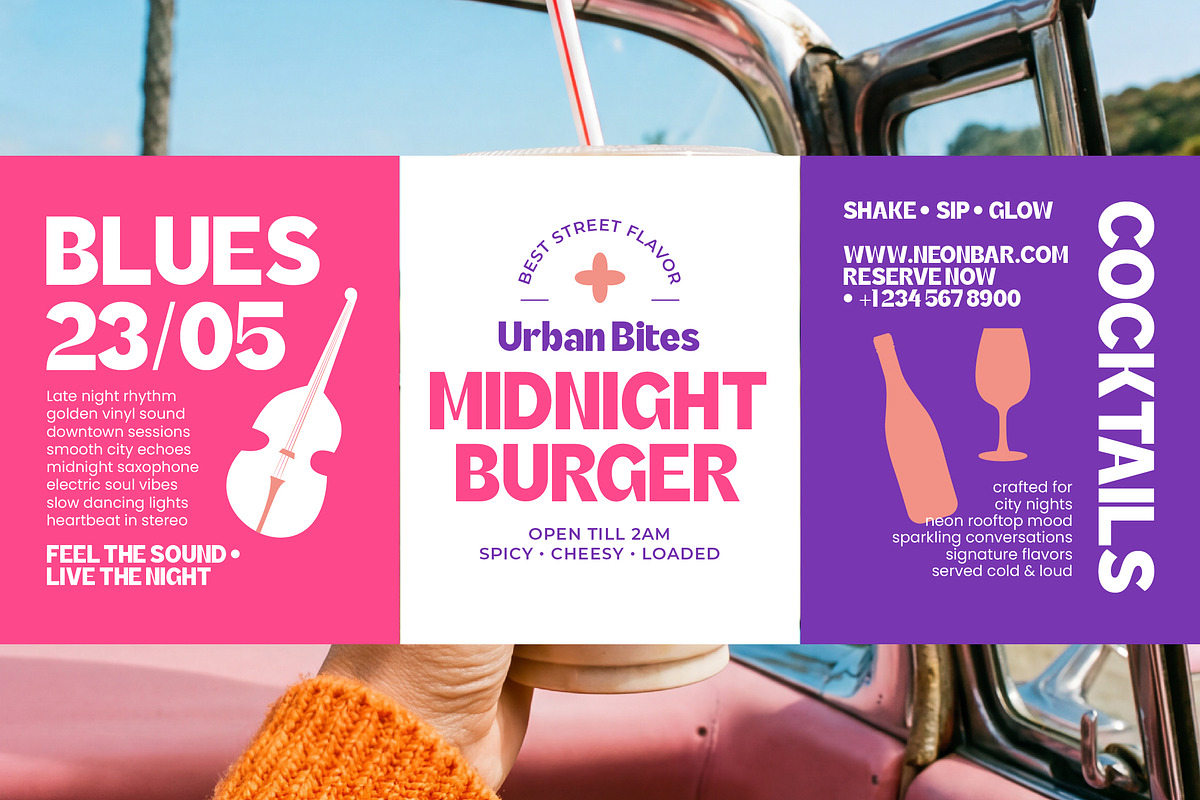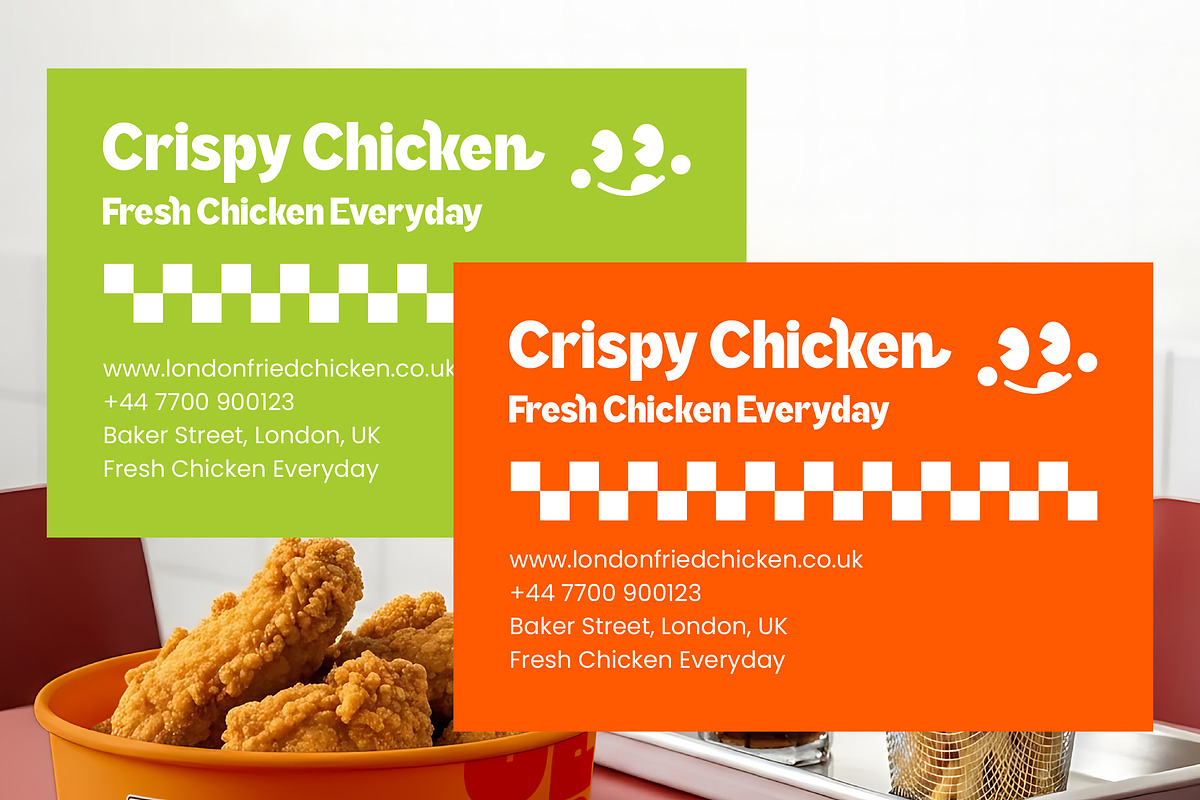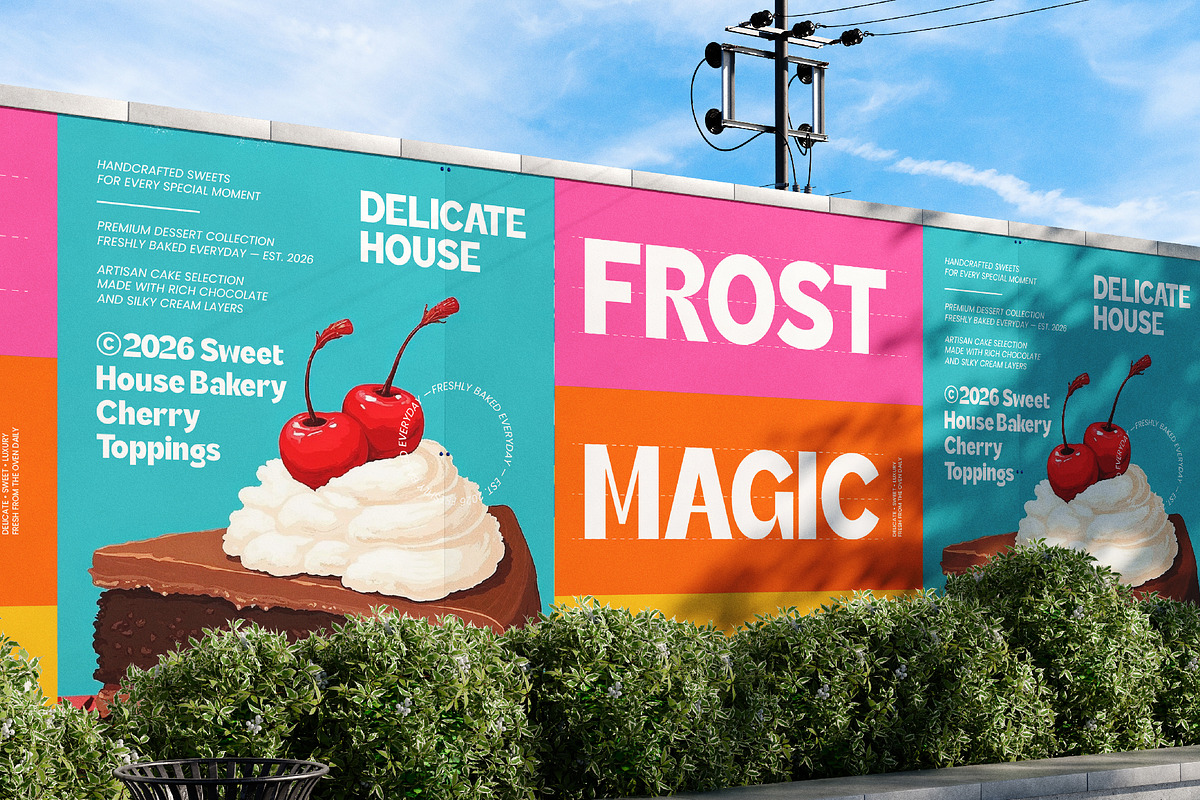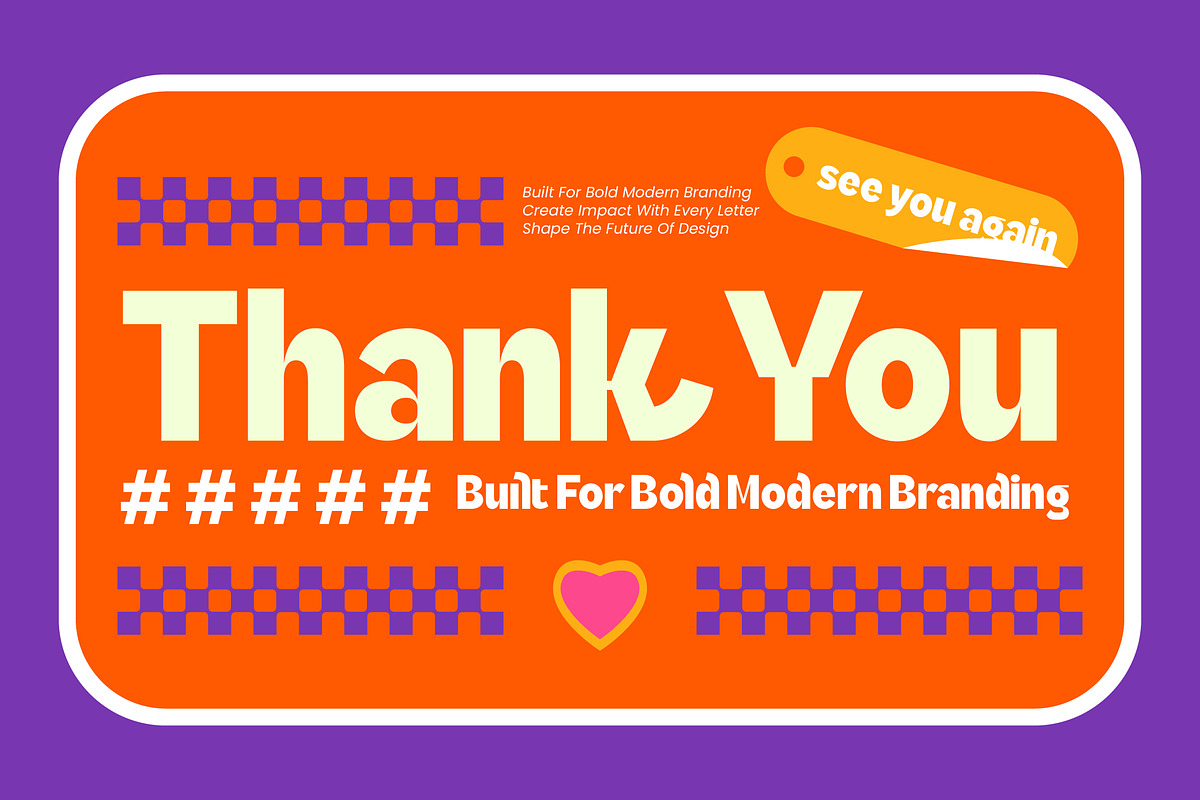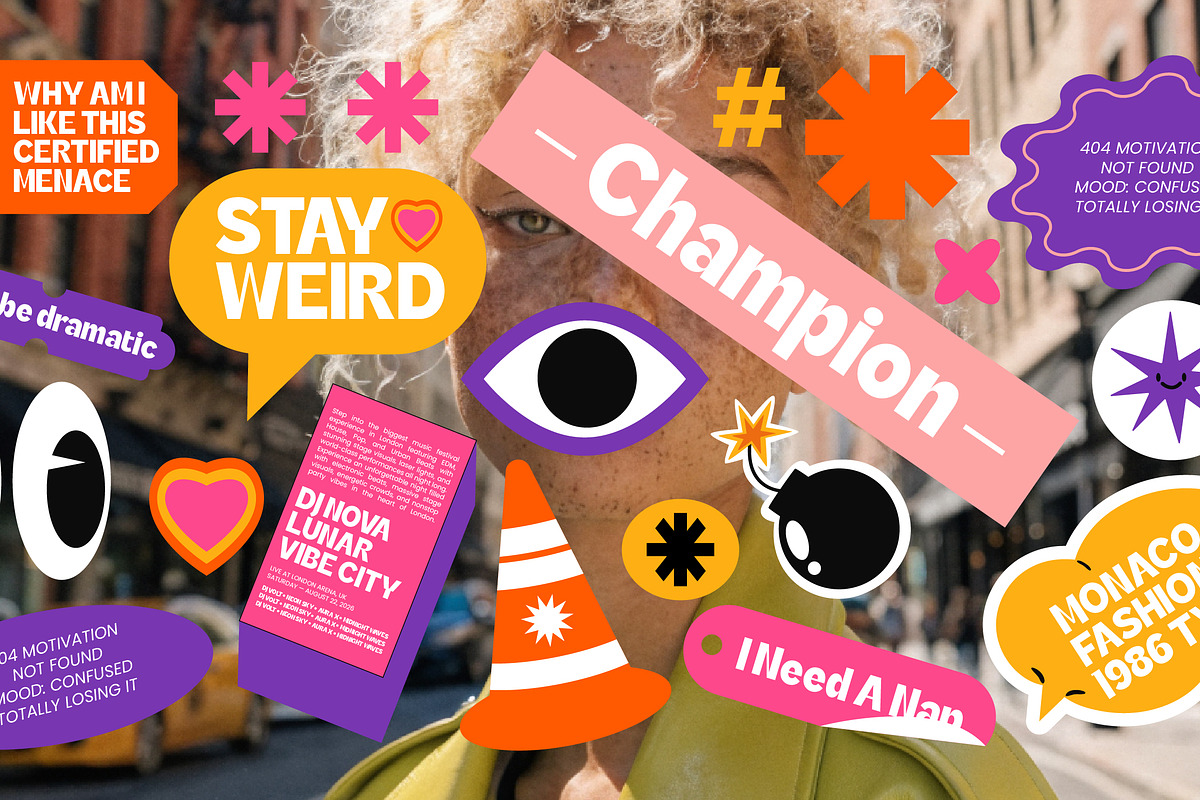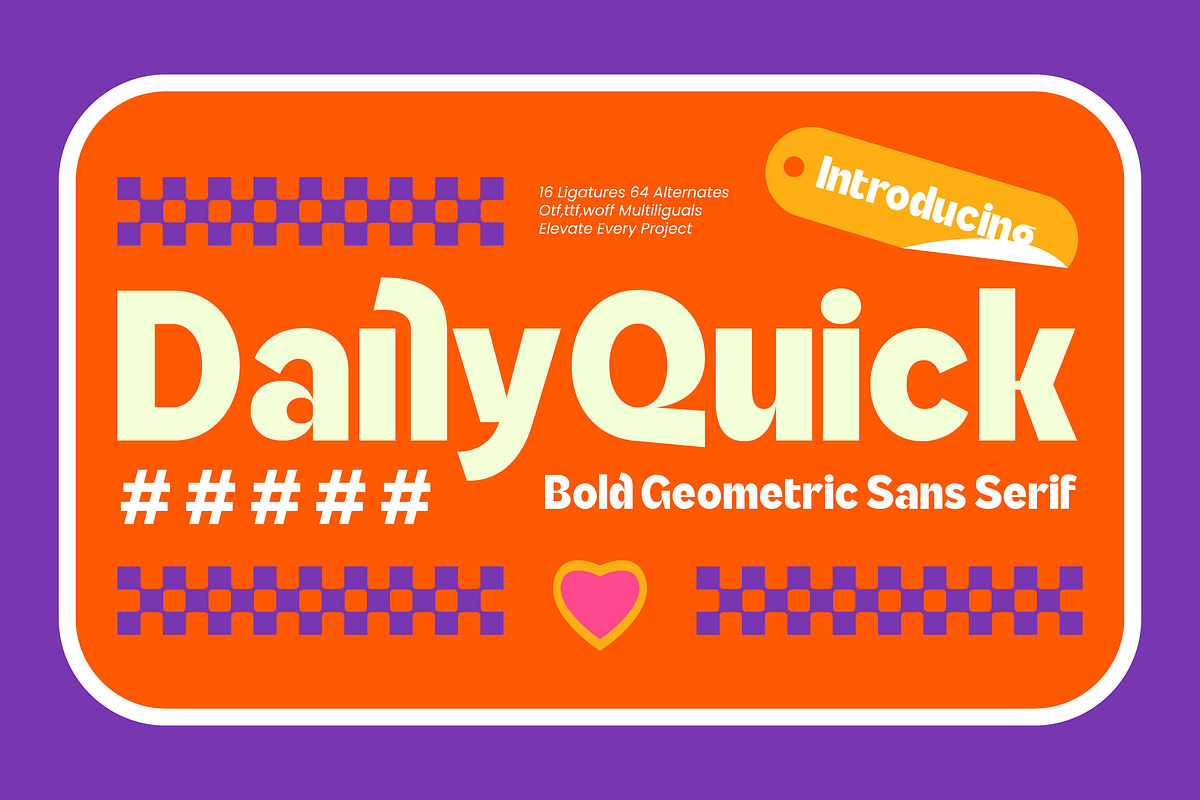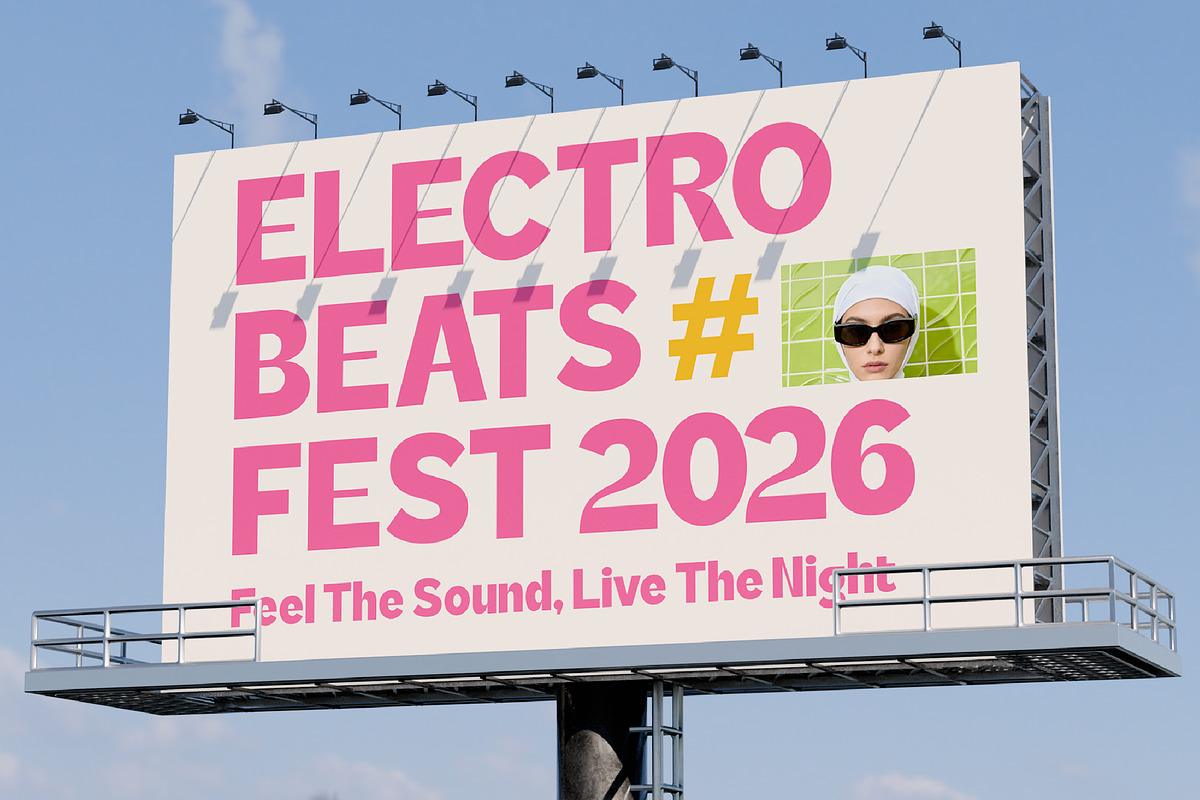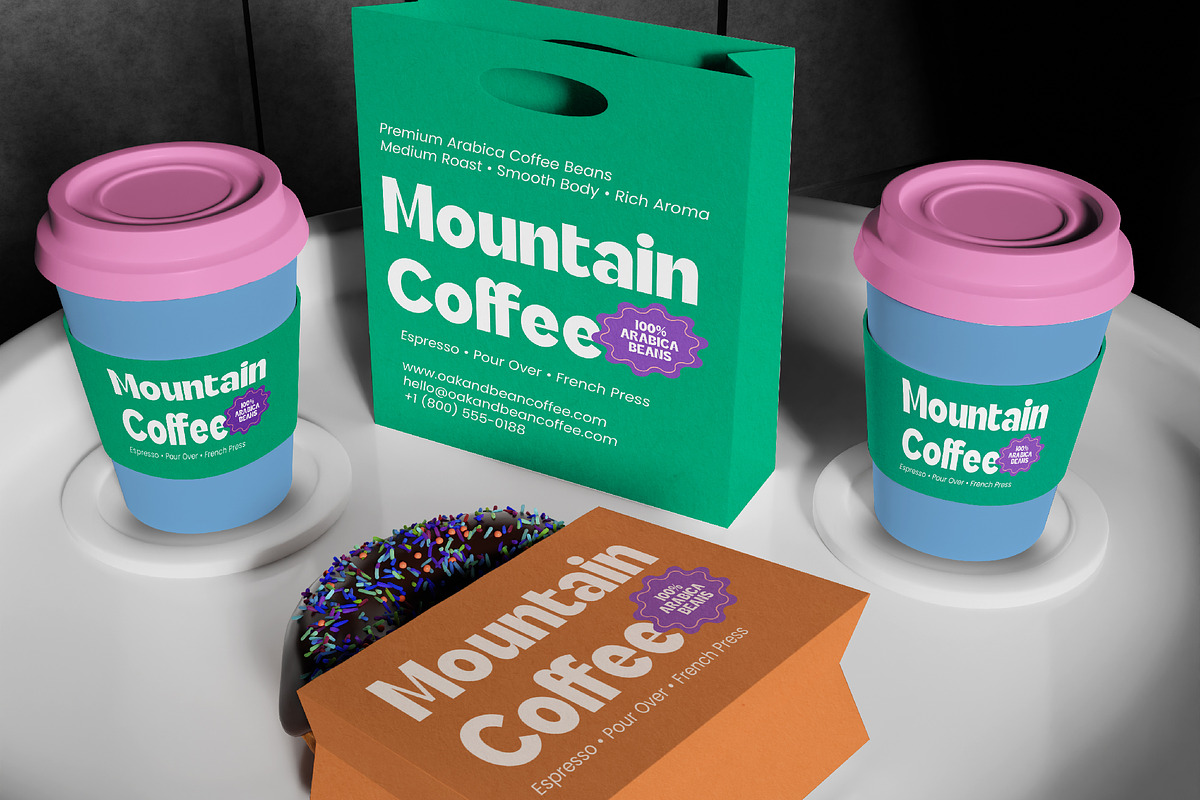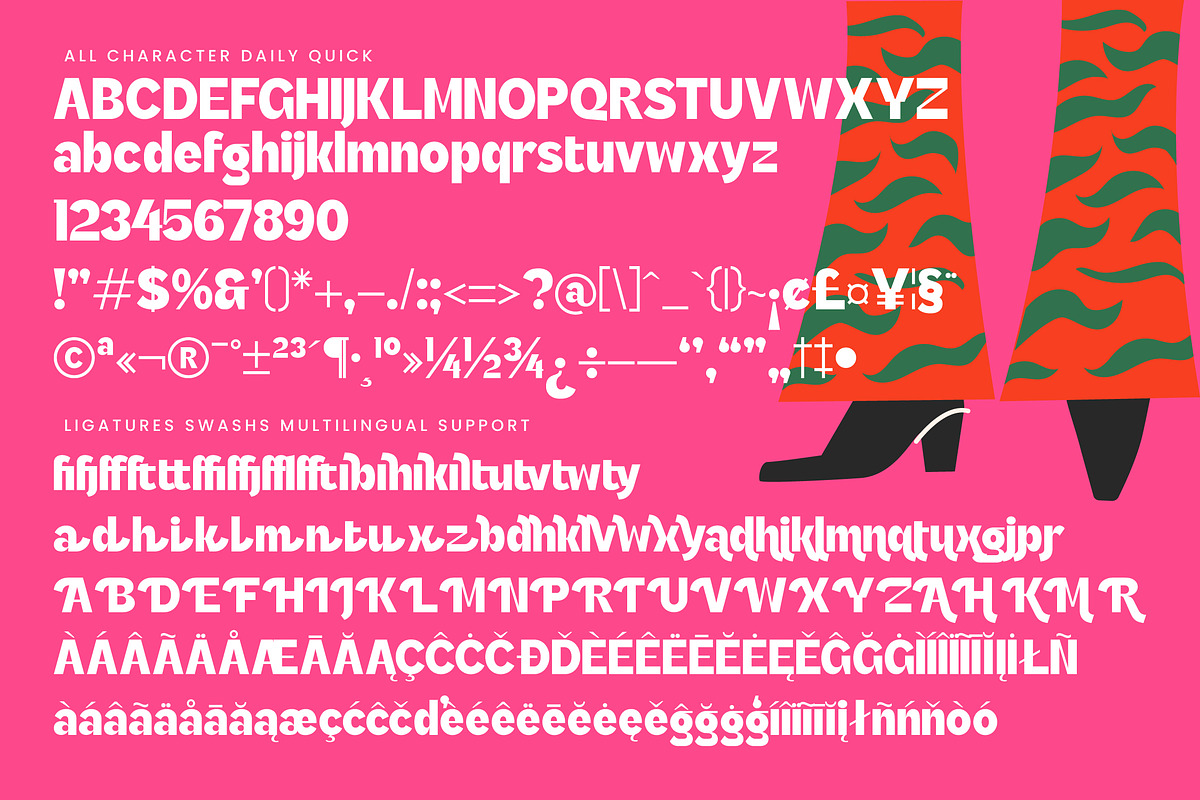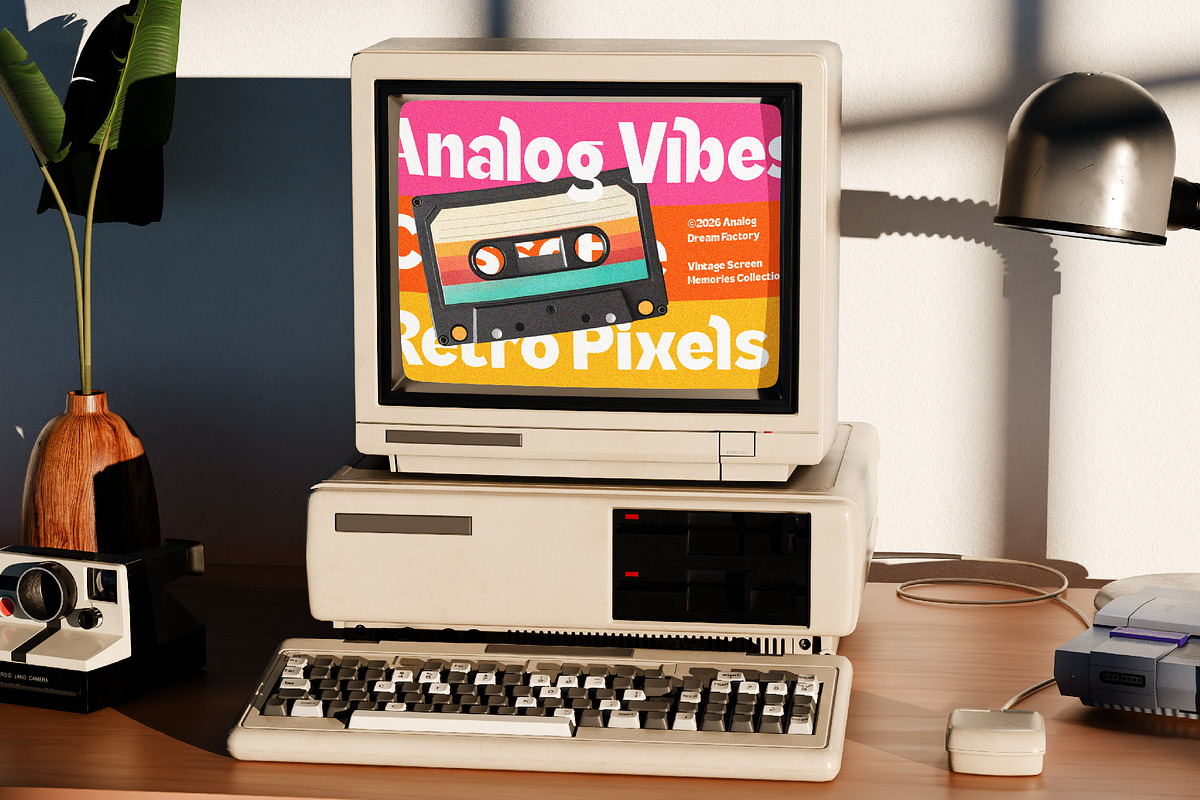
Daily Quick Bold Geometric Sans
**Daily Quick – Bold Geometric Sans Serif , **Command attention with an unapologetically bold aesthetic that defines modern graphic standards. Daily Quick – Bold Geometric Sans Serif is a masterpiece of contemporary typography, blending geometric precision with a playful, high-energy spirit. Designed to dominate headlines and command visual hierarchy, this bold display typeface ensures your message is not just seen, but remembered through its clean architecture and striking presence.
Unlock unparalleled creative freedom with a comprehensive set of professional typographic features. Featuring 16 unique ligatures and 64 stylish alternates, Daily Quick – Bold Geometric Sans Serif offers infinite customization for any design layout. With its extensive multilingual support, Daily Quick – Bold Geometric Sans Serif adapts seamlessly across global markets, making it incredibly versatile for international projects requiring a consistent brand identity.
Transform your brand identity across a diverse range of high-end commercial applications. Daily Quick – Bold Geometric Sans Serif is the ideal choice for luxury packaging, editorial layouts, high-impact posters, and dynamic web design. It is perfect for progressive fashion labels, modern tech startups, and lifestyle branding where a strong visual personality is essential for effective market differentiation and consumer engagement.
Invest in a strategic design asset that perfectly balances aesthetic excellence with technical reliability. Whether you are crafting a distinctive logo or developing a multi-platform advertising campaign, Daily Quick – Bold Geometric Sans Serif provides the sturdy legibility and visual punch required for today’s competitive landscape. Elevate your creative portfolio and captivate your target audience with this essential sans serif solution.